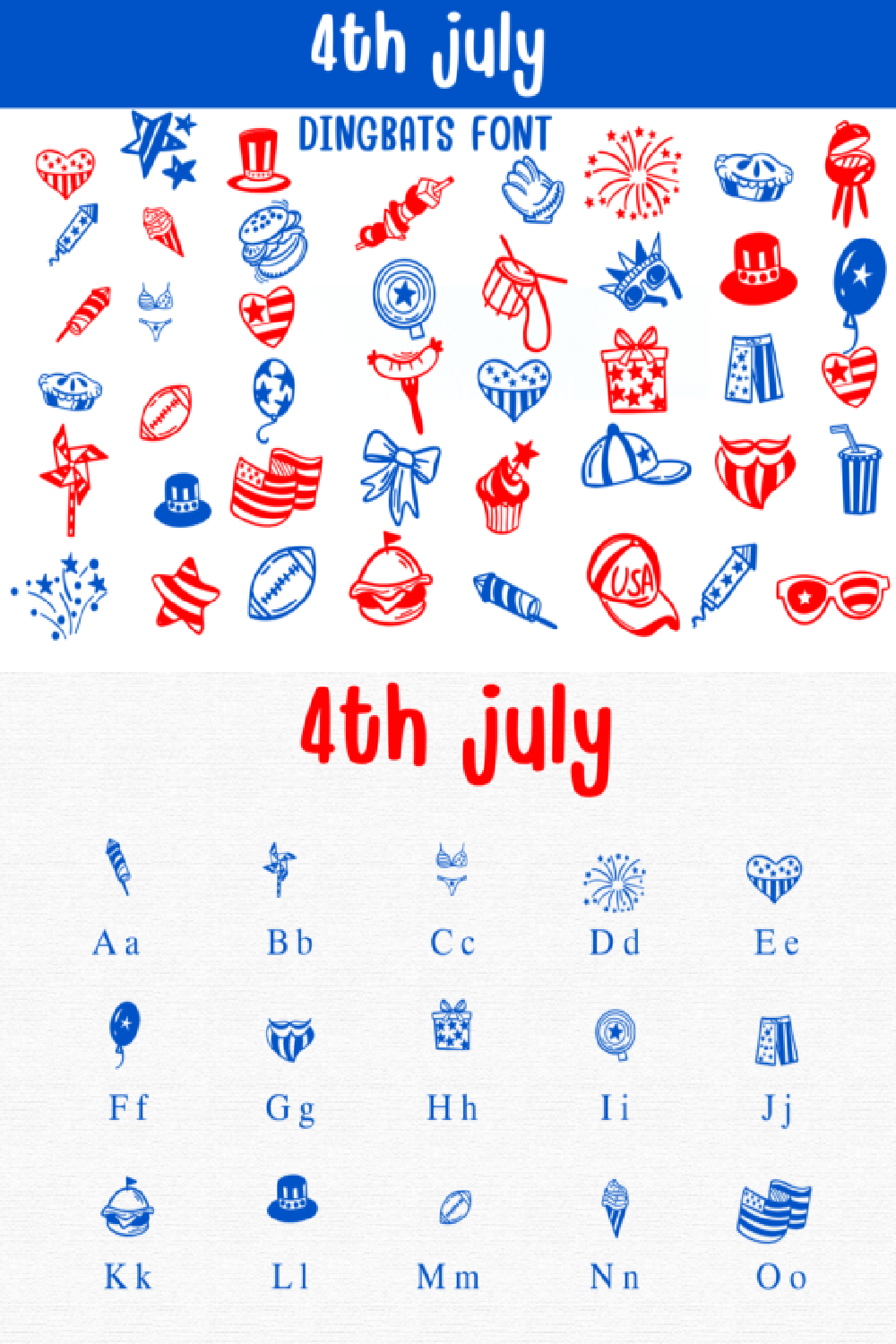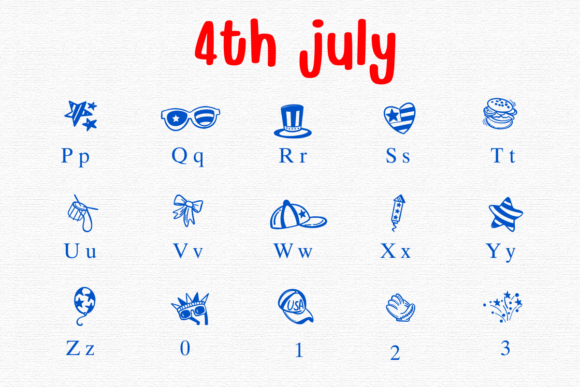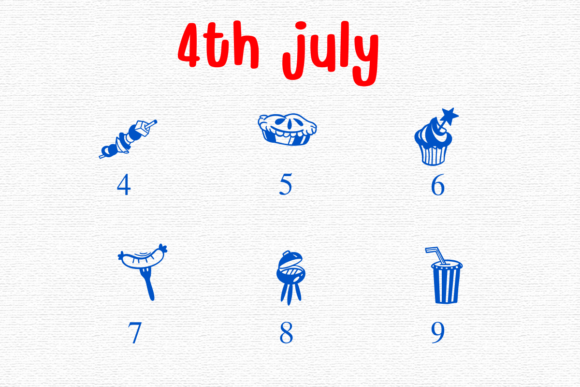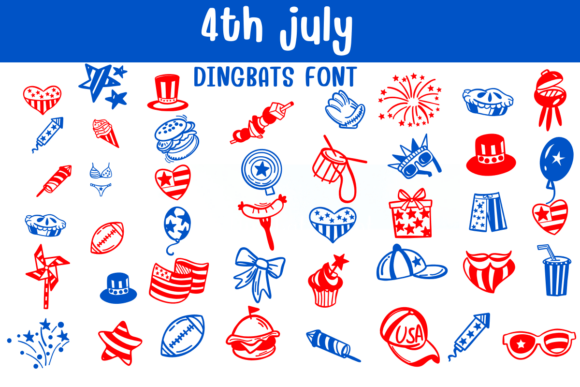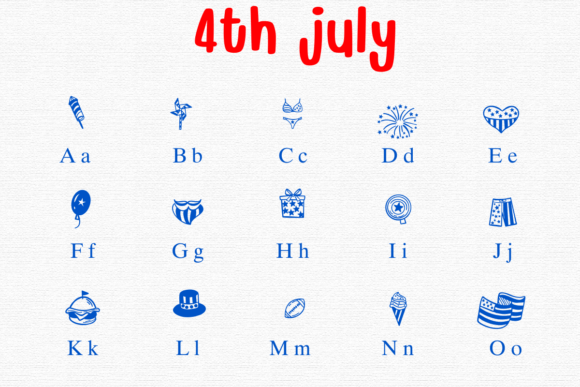
About the 4th July Font
Explore the possibilities with 4th July Font, a font that offers both beauty and functionality. 4th July is a patriotic dingbats font featuring red, white, and blue icons like fireworks, flags, stars, BBQs, and American symbols. Great for Independence Day crafts, party invitations, and USA-themed decor or designs.